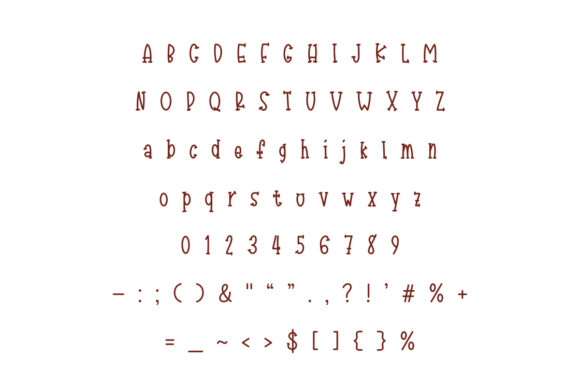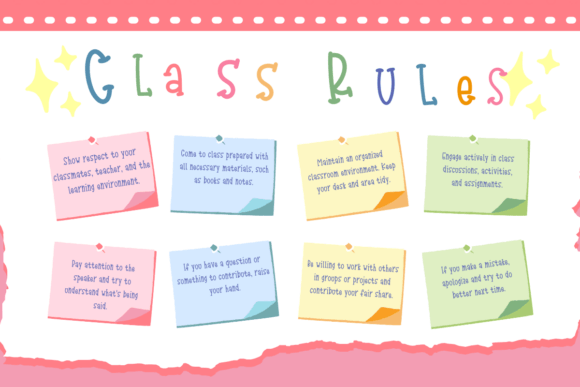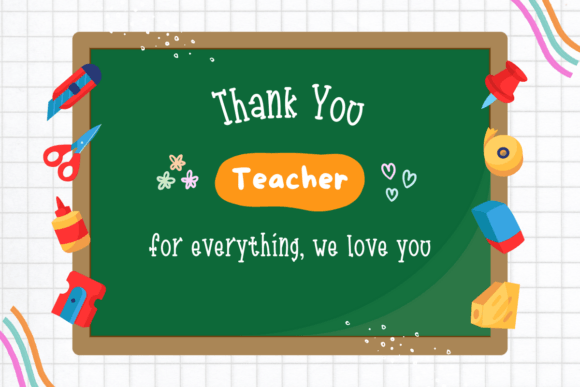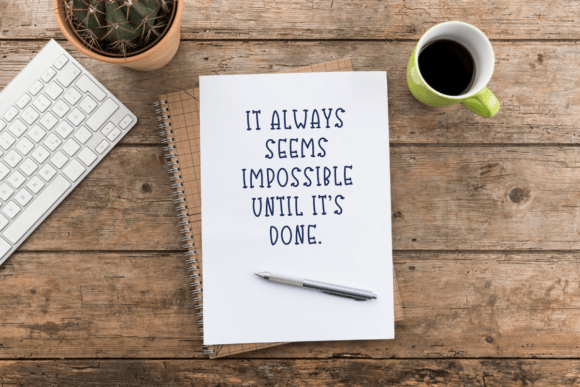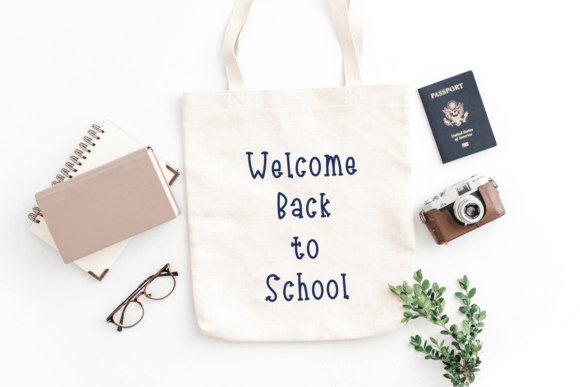
Celebrating Learning with 100 Days of School Font
I’ll never forget the time I was working on a project for a local elementary school’s 100th day of school celebration. I was tasked with creating eye-catching invitations, decorations, and activity sheets that would engage both kids and teachers. As I scrolled through font after font, I just couldn’t find the perfect fit – until I stumbled upon the 100 Days of School font. This playful, handwritten font instantly brought charm and character to my designs, making the project a breeze to complete. In this article, I’ll share with you why I’m obsessed with this font, how to use it, and where it fits into your design toolkit.
An Honest Review of 100 Days of School Font
- ✨ Playful and Fun: The 100 Days of School font radiates warmth and friendliness with its fun letterforms, making it perfect for educational projects and kids’ crafts.
- ✅ Highly Versatile: This font is suitable for a wide range of applications, from classroom decor and invitations to milestone celebrations and activity sheets.
- 💡 Inspires Creativity: The unique and quirky design of this font sparks imagination and creativity, making it ideal for projects that require a personal touch.
While the 100 Days of School font is amazing, there are a few things to keep in mind:
- ⚠️ Limited Use in Formal Designs: Due to its playful nature, this font might not be the best choice for formal or professional designs.
- 🤔 Requires Attention to Legibility: When using this font in large blocks of text, make sure to adjust the size and spacing for optimal legibility.
- Experiment with OpenType features, such as Stylistic Alternates, to add more flair to your text.
- Access OpenType features, such as Glyphs and Stylistic Sets, to customize your text.
The Backstory of 100 Days of School Font
The 100 Days of School font was designed with the intention of creating a fun and engaging way to celebrate learning. The designer aimed to craft a font that would bring a smile to kids’ faces and inspire creativity in the classroom. With its playful letterforms and charming personality, this font has become a favorite among designers, crafters, and educators.
| Font Name | 100 Days of School Font |
| Author | Nun Sukhwan |
| What is the 100 Days of School font best used for? | The 100 Days of School font is perfect for educational projects, kids’ crafts, classroom decor, invitations, and milestone celebrations. |
| Is the 100 Days of School font suitable for formal designs? | No, due to its playful nature, this font is best suited for informal and creative projects. |